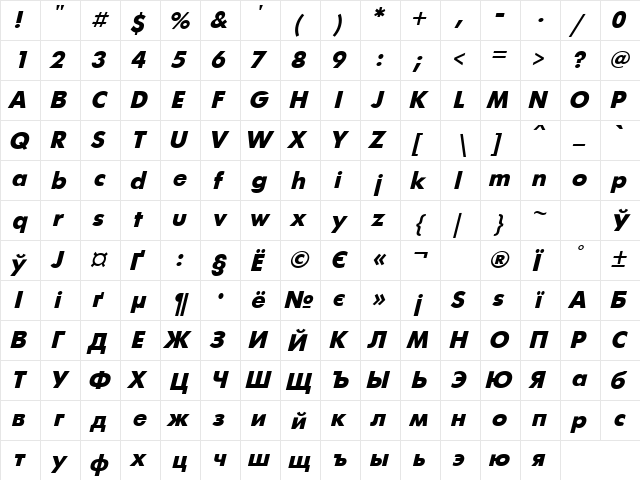
UkrainianFuturis BoldItalic Font Preview
Design Context for UkrainianFuturis Typeface
UkrainianFuturis channels digital-age aesthetics through its sharp, structured letterforms — ideal for brands that want to signal innovation. The dynamic lean of this cut emphasises speed and emphasis in any layout. Its bold stroke weight gives it real presence on the page.
Pro Tip: Try UkrainianFuturis with generous letter-spacing in UI labels and navigation — the geometric forms benefit from room to breathe.